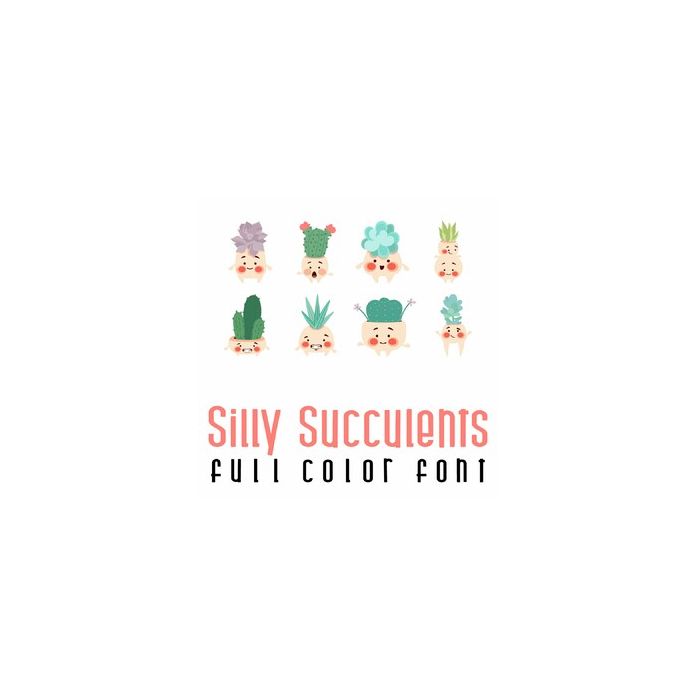
This adorable full-color doodlebat font features 26 fun cacti and cute puns. Perfect for cards, crafts, gifts, decor, scrapbook pages, planner stickers, and more!